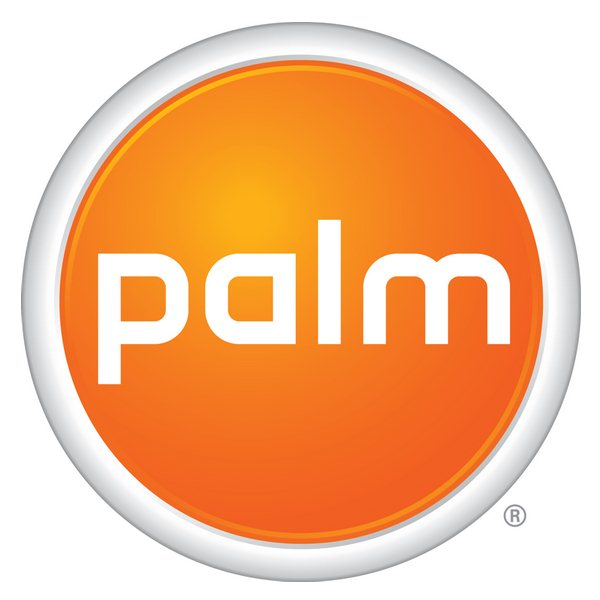
Palm Font
ElectronicsPalm was a pioneering smartphone manufacturer in the late 90s and early 2000s known for their PDA and smartphone devices such as the Palm Pilot and Treo. The company was eventually acquired by HP in 2010 but the brand and technology was later sold to TCL Communication. After its acquisition by HP, a hybrid HP Palm logo was adopted with the same typeface from its previous orange logo.